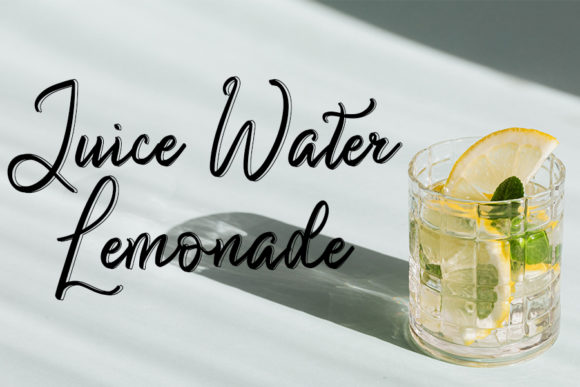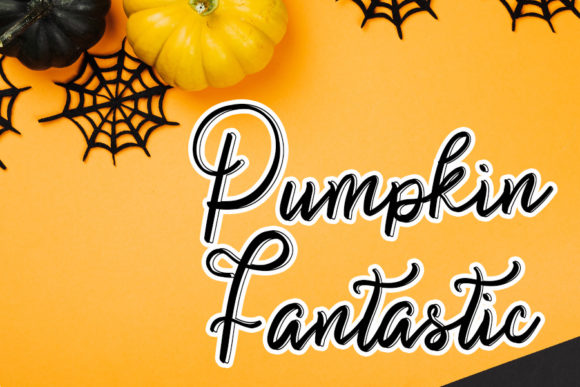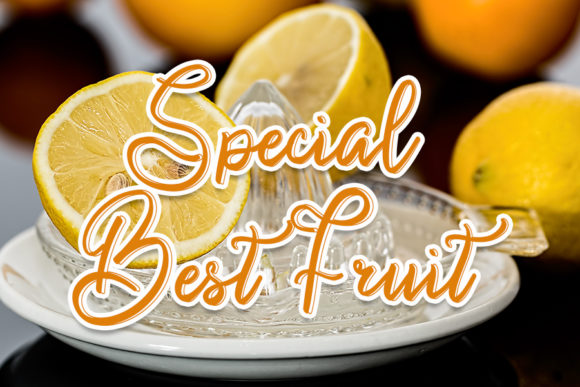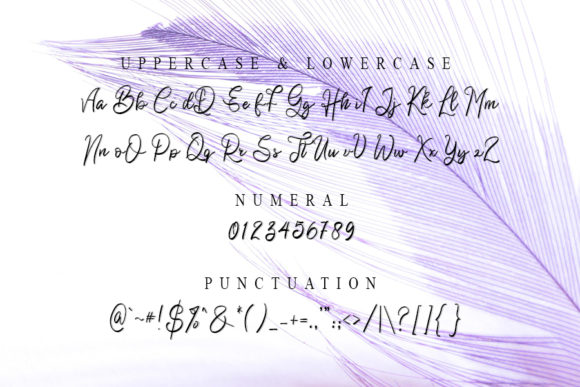
Unleashing the Joy of Handwriting: Introducing Biologis Font
Do you remember the last time you received a handwritten letter or a beautifully crafted wedding invitation? The personal touch, the love, and the care that went into creating it – it’s a feeling that’s hard to replicate with digital communication. For designers, capturing that same essence of human touch is a constant pursuit. And that’s where the Biologis Font comes in – a cursive and joyful handwritten font that brings a smile to your face and a warmth to your designs.
With its versatility and playful charm, the Biologis Font is perfect for a wide range of designs, from wedding invitations to greeting cards, logos, and more. Its unique style adds a personal touch that’s sure to make your designs stand out. Whether you’re a seasoned designer or a creative enthusiast, the Biologis Font is a valuable addition to your toolkit, offering endless possibilities for self-expression and creativity.
- Unique Characteristic: The font features a unique blend of organic and geometric elements, creating a distinctive and modern aesthetic.
Biologis Font Review
At first glance, Biologis font caught my attention with its unique blend of modern and organic elements. ✨ The font’s ability to adapt to different styles and contexts is impressive, making it a versatile choice for various design projects.
- ✨ Unique blend of modern and organic elements
- ✨ Highly adaptable for different styles and contexts
- ✨ Excellent for use in branding, logos, and editorial content
However, I did encounter some limitations while working with Biologis. ⚠️ The font’s irregularities can sometimes make it difficult to read, especially in large blocks of text. Additionally, the font’s complexity can lead to compatibility issues with certain design software.
- ⚠️ Irregularities can make it difficult to read in large blocks of text
- ⚠️ Complexity can lead to compatibility issues with certain design software
Overall, I would rate Biologis font 4 out of 5. While it excels in terms of adaptability and unique design, its limitations can be a hindrance in certain situations. Nevertheless, I would recommend Biologis font for designers looking for a distinctive and modern touch in their projects.
Tips for Getting the Most Out of Biologis Font
To get the most out of the Biologis font, try using it in combination with other handwritten fonts or bold fonts to create a unique and eye-catching design. You can also use the font to add a personal touch to your designs, such as adding your name or a special message.
The Biologis font is perfect for designs that require a personal touch, such as wedding invitations, birthday cards, and social media graphics. It’s also great for adding a unique touch to your branding and marketing materials.